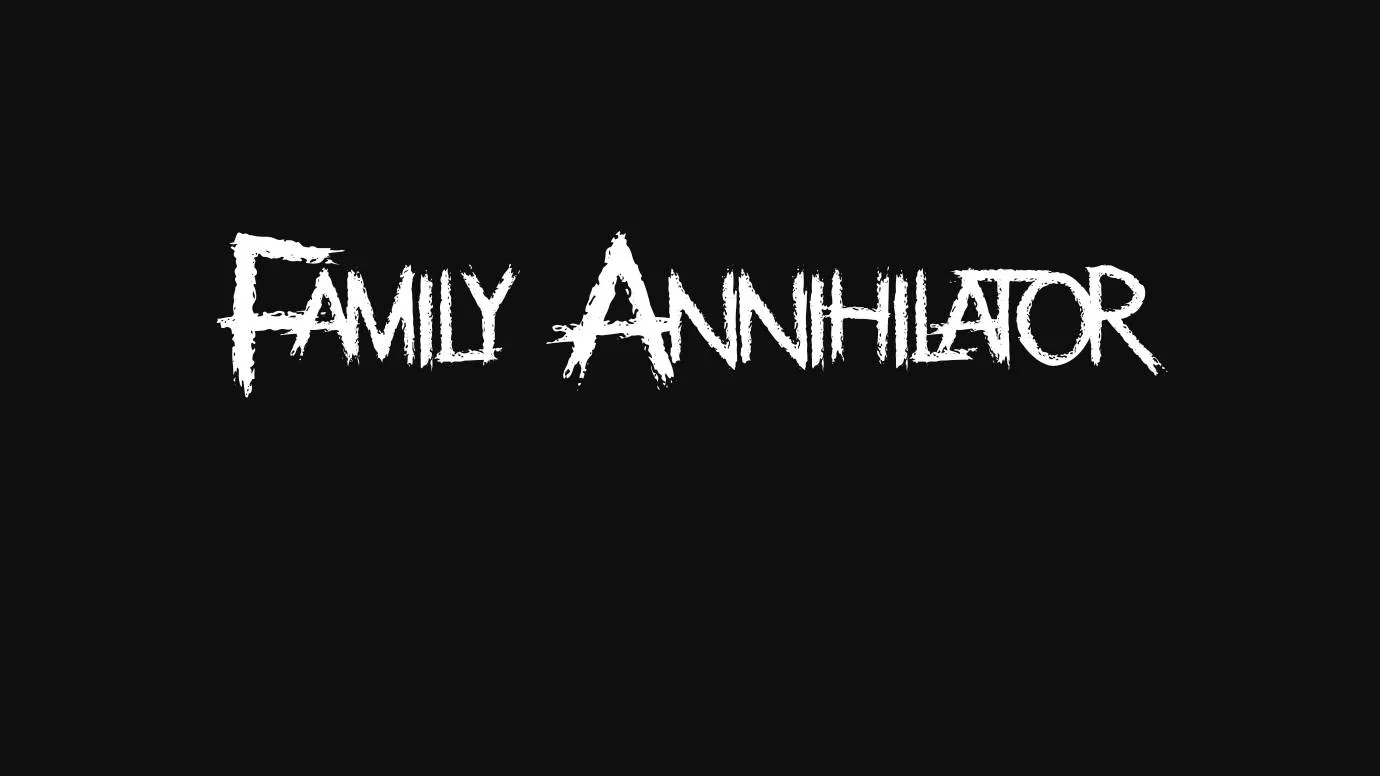
Family Annihilator Font Family is a very unique scary typeface that was designed by Font Monger. It was launched in 2020, and this font is famous in many cities for making scary projects.
It is very famous for making scary projects it is used in Halloween events mostly or other projects that represent the horror elements, like movies or web series. It can also be used for pairing with other fonts like nightmare font to give a more scary and attractive look to your horror projects.
Family Annihilator Font